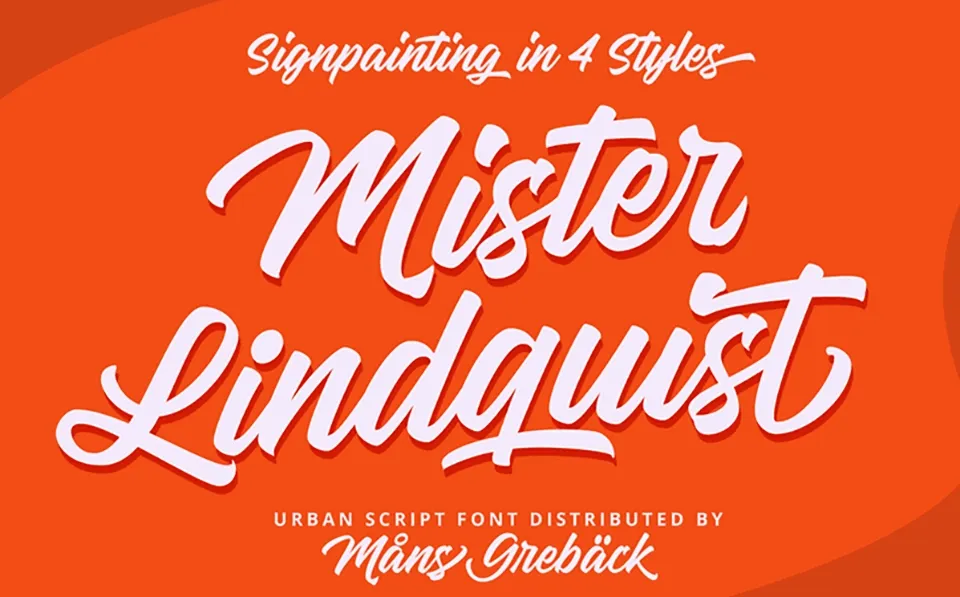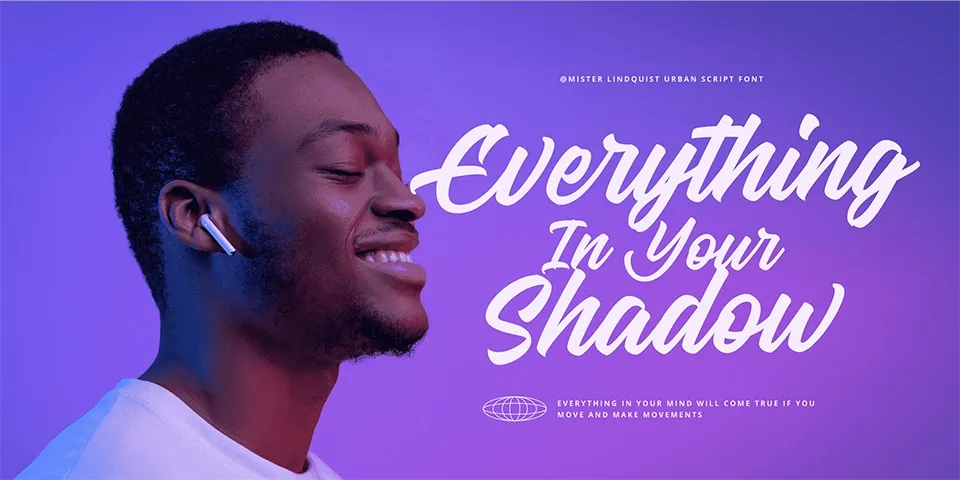
Mister Lindquist Font
Mister Lindquist Font is a dynamic script typeface designed by Måns Grebäck, inspired by traditional sign painting. This urban script typeface features bold, flowing strokes and a handcrafted feel, making it perfect for projects that need a lively and authentic touch. Mister Lindquist comes in four distinct styles, including Regular and Bold with matching Italics, offering versatility for various design needs. Its smooth curves and energetic character make it ideal for branding, logos, posters, and creative headlines. With its blend of vintage charm and modern flair, Mister Lindquist brings personality and style to any visual project.